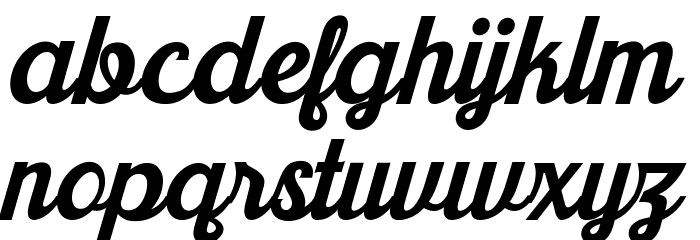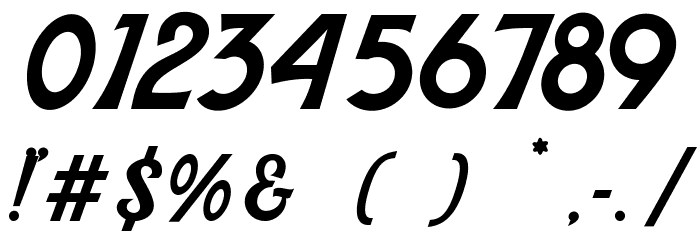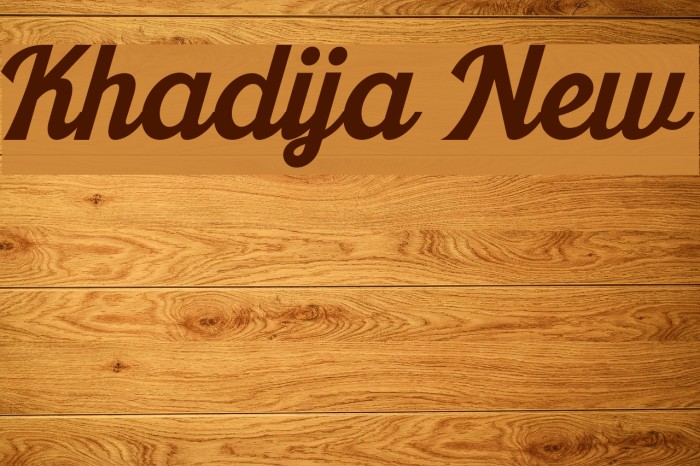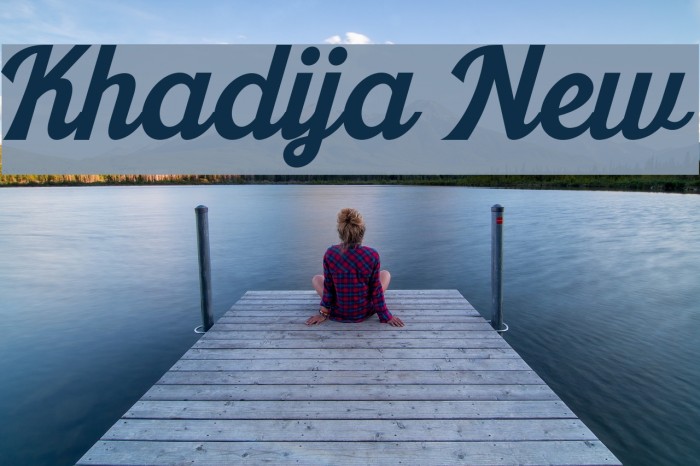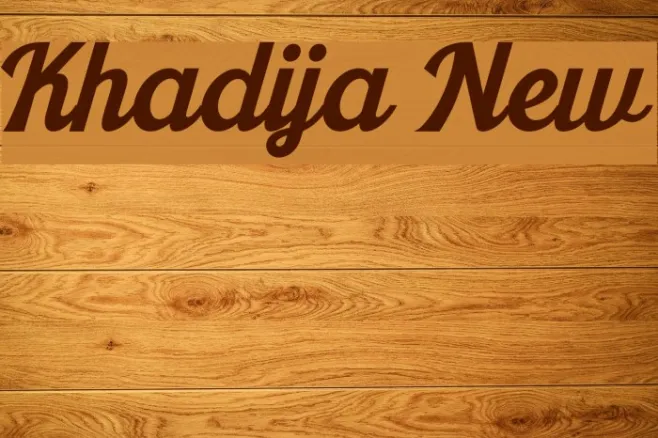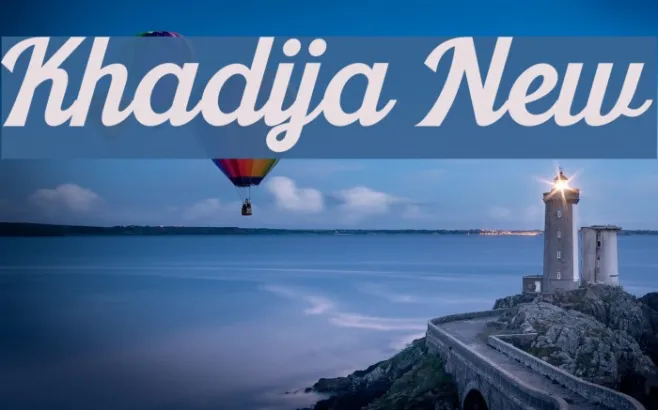
Khadija New Font
This font features a bold, cursive style with a strong presence. The letters are connected, giving it a flowing, elegant appearance. The uppercase characters are slightly slanted, adding a dynamic feel, while the lowercase letters maintain a consistent, smooth curve. Numbers and special characters are designed to match the overall aesthetic, ensuring uniformity across all elements. The font's boldness and italic nature make it suitable for impactful designs that require a touch of sophistication.
A bold, cursive font with a flowing, elegant style.
- Proposed Projects: Ideal for wedding invitations, branding, logo design, and elegant signage.
- Category: Script
- Overall Style: Elegant
- Use Case: Logos, Invitations, Headlines